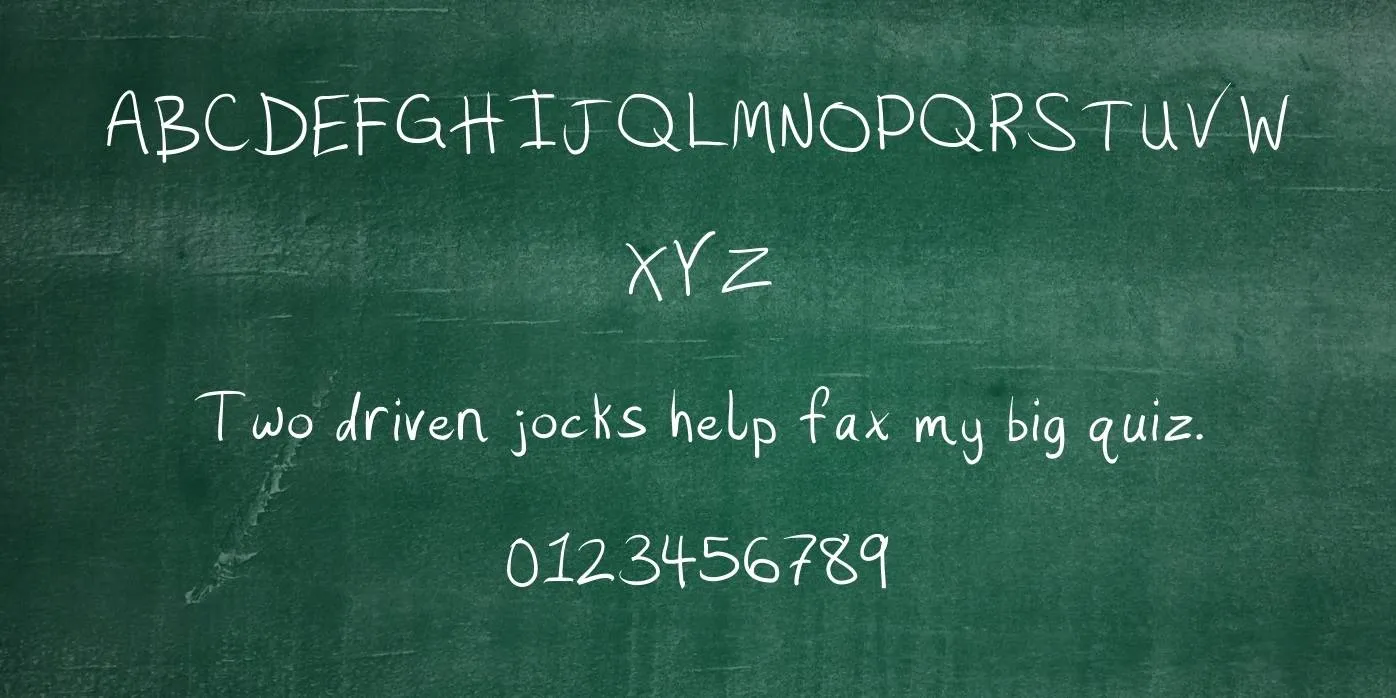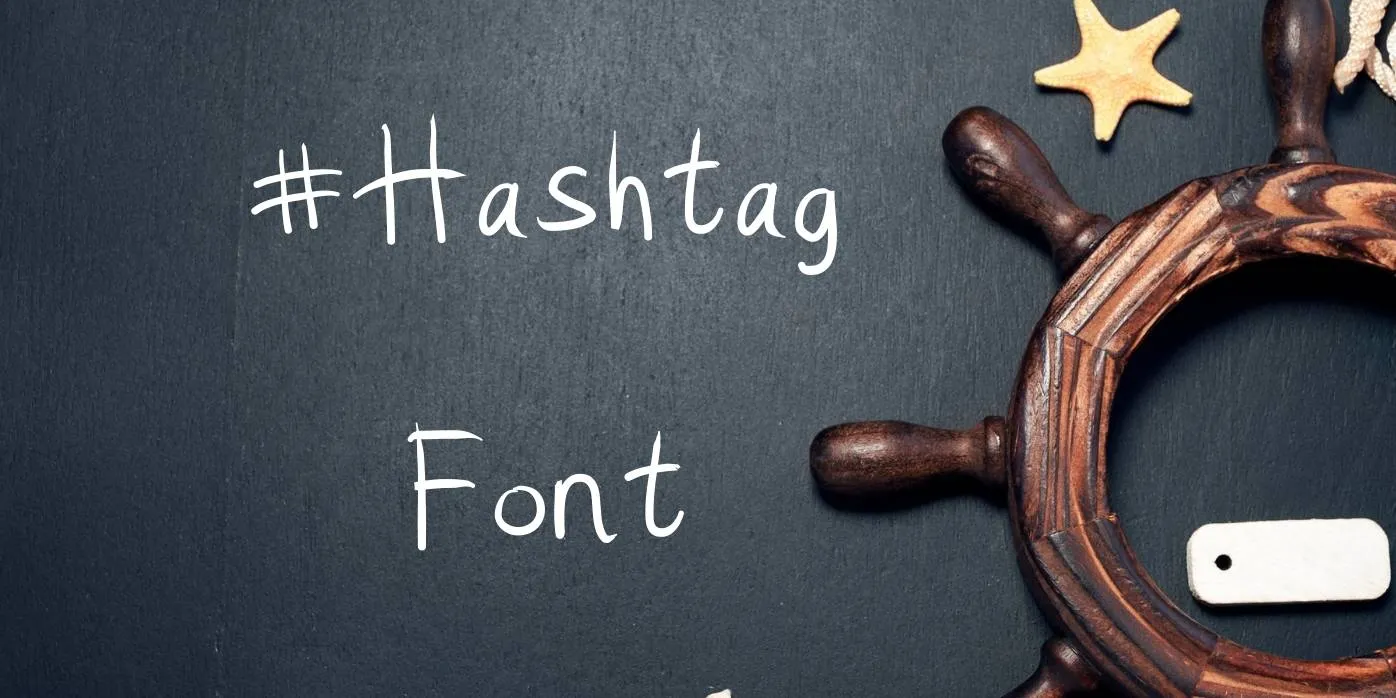
Hashtag Font
Today we are presenting a marvelous and staggering font named Hashtag Font. This classy font belongs to the Handwritten font family. This awesome font was designed by a famous and well-known designer TitanVex. This stunning font was available in 3 different styles and unique weights.
Bold, Italic and Regular are its common weights. This font family contains more than 154 advanced Glyphs and includes 258 special characters. Especially this classic font is used for Twitter and Instagram functions. You can also use its copy and paste function.